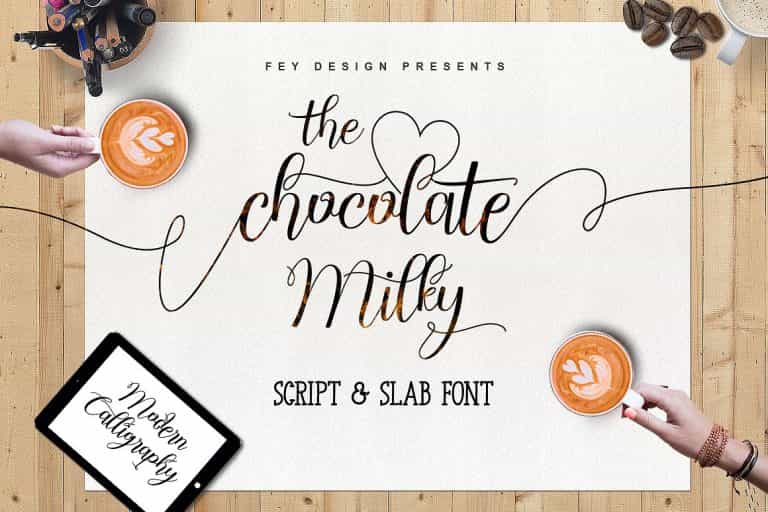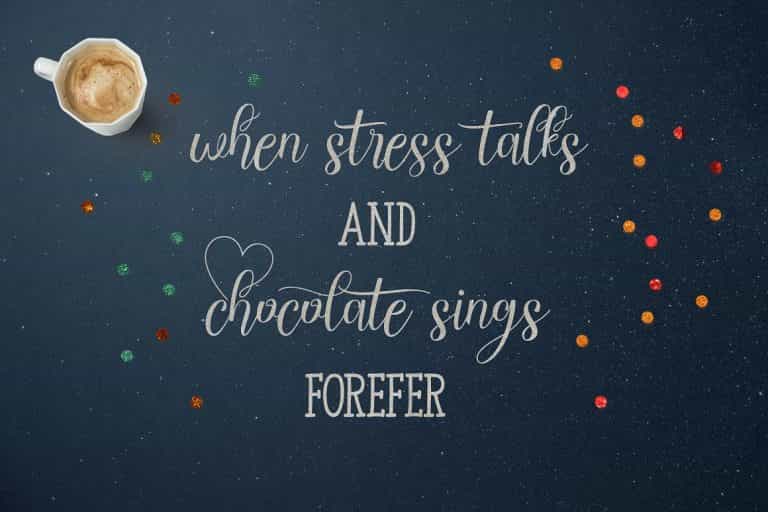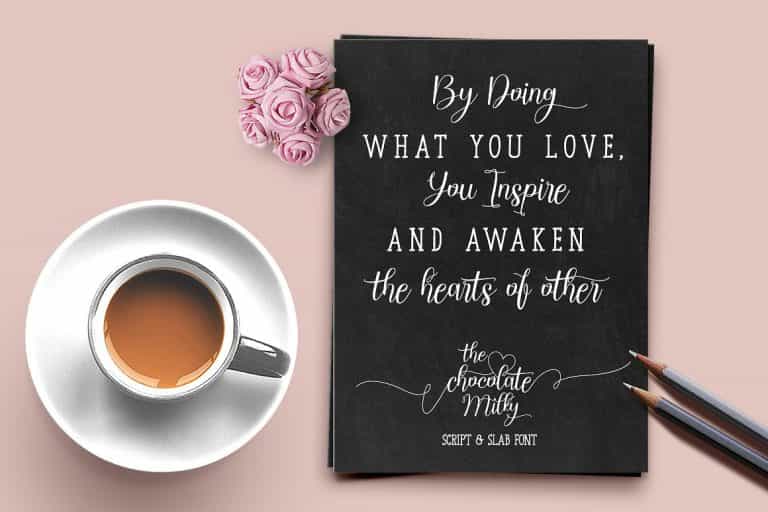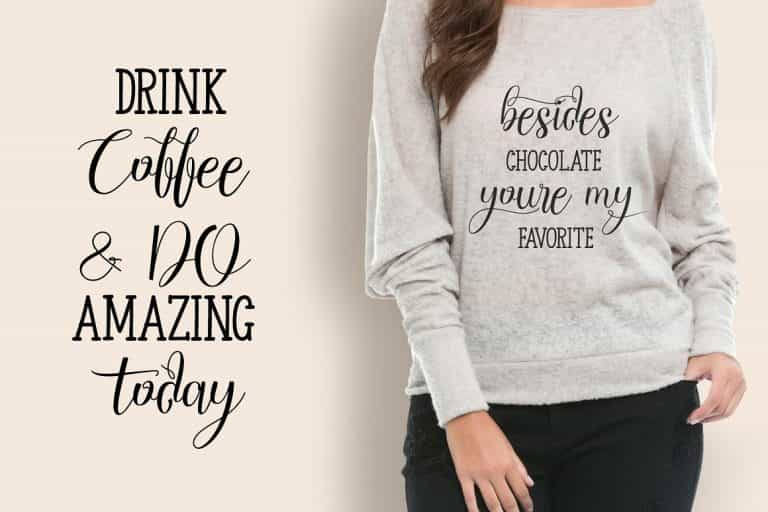
Introducing Chocolate Milky Font. Chocolate Milky is a contemporary cursive font, with loads of ligatures and alternate glyphs. Fit for the design, element design, wedding, event t-shirt logo badges sticker and awesome work etc…